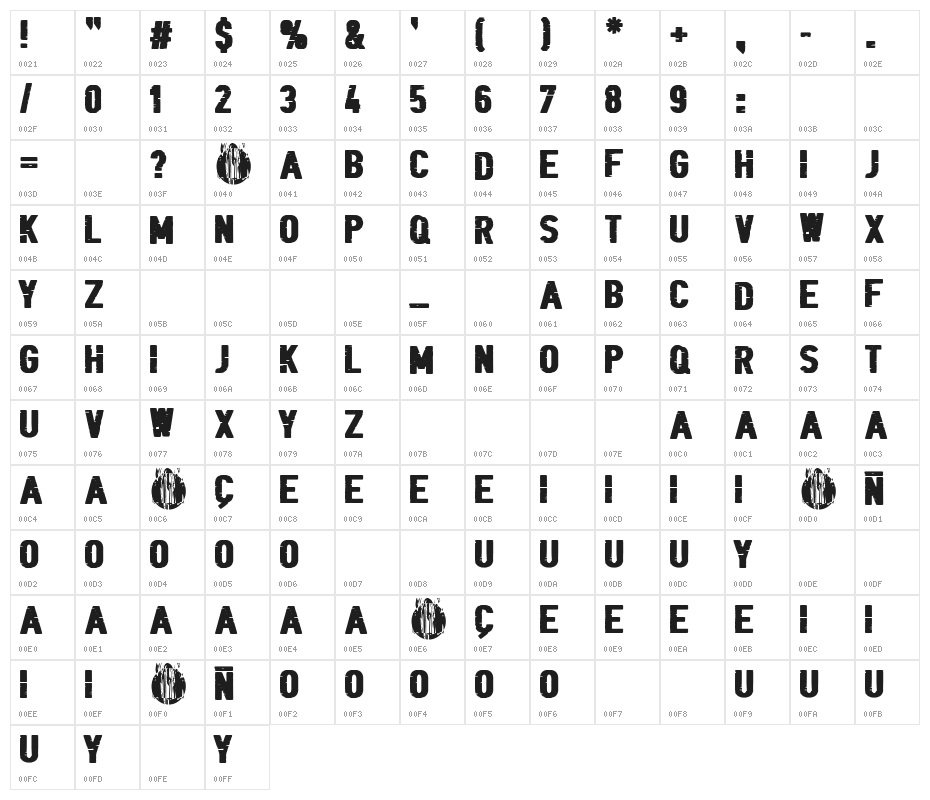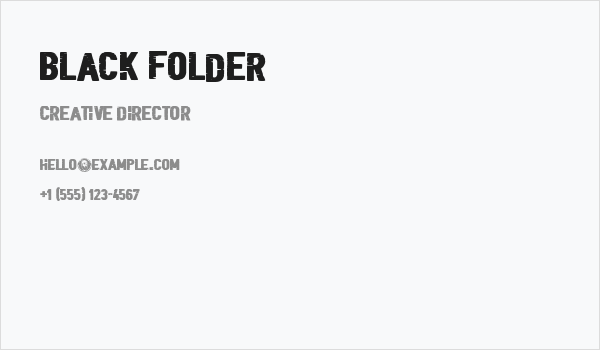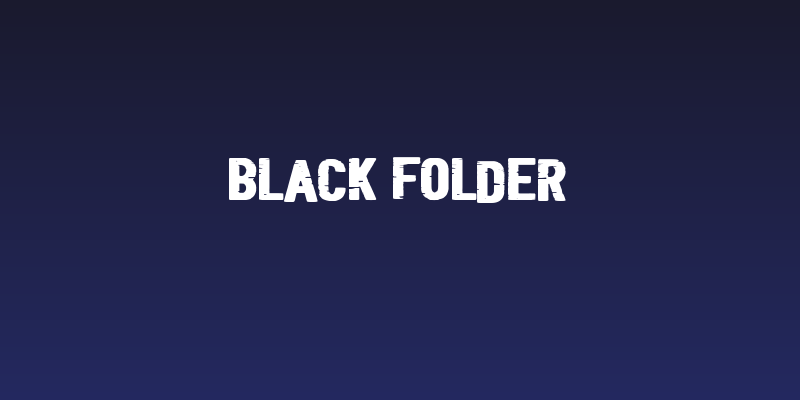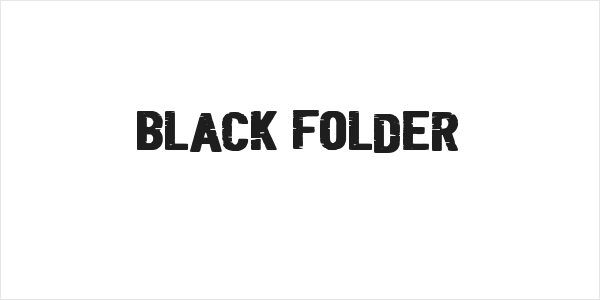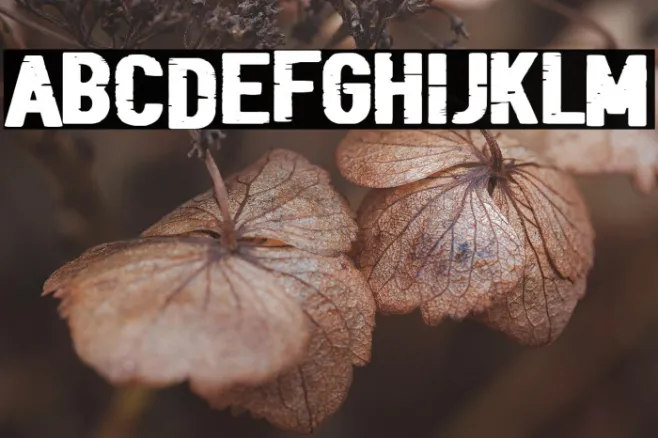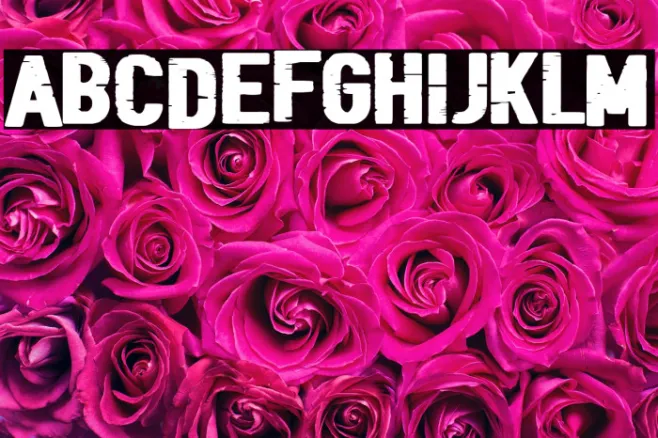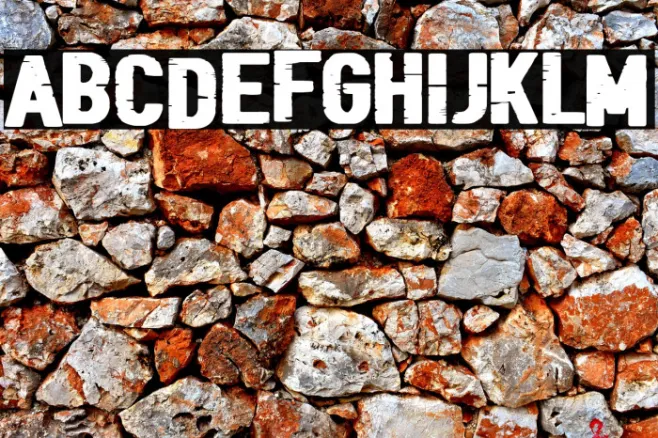
Black Folder Font
Black Folder Description
This font features a bold, distressed style with a rugged, textured appearance. The characters are heavily weighted, giving them a strong presence, while the rough edges and uneven strokes add a sense of vintage charm and character. The uppercase letters are prominent and impactful, making them ideal for attention-grabbing headlines or titles. The numbers and special characters maintain the same distressed aesthetic, ensuring consistency across all text elements. This font's unique style is reminiscent of old-school printing techniques, adding a nostalgic touch to any design.
| Proposed Projects | Ideal for posters, album covers, branding projects, and any design requiring a bold, vintage look. |